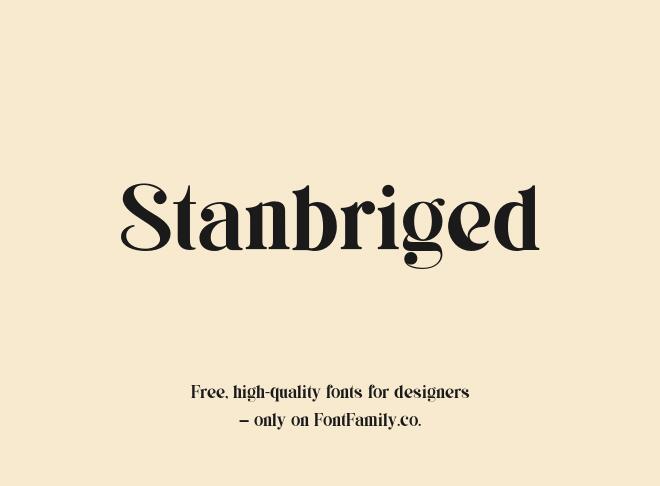
Stanbriged Font
Introducing Stanbriged Font, a modern and elegant typeface that stands out in the crowd. With its sleek lines and refined curves, it's a perfect blend of contemporary style and timeless elegance. This font is ideal for designers seeking to add a touch of sophistication to their projects. Whether it's used for logo design, branding, or display purposes, Stanbriged Font delivers a clean and professional look. Compared to other fonts, it offers a unique blend of modern simplicity and traditional elegance. It's versatile, easy to read, and free to download for personal use. With Stanbriged Font, your design will not only look stunning but also leave a lasting impression.